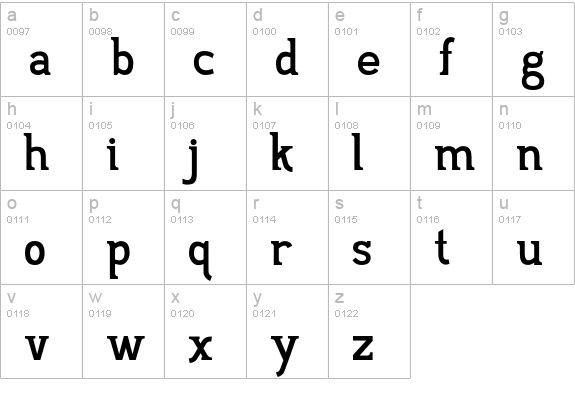
Pajarakan Studs Font Details
Pajarakan Studs font is a unique and captivating typeface that is sure to make a bold statement in any design project. With its intricate details and striking appearance, this font is perfect for adding a touch of elegance and sophistication to your work. The Pajarakan Studs font features a combination of sharp edges and ornate curves, creating a visually captivating effect that is both contemporary and timeless. What sets Pajarakan Studs font apart is its versatility. Whether you're designing a logo, creating a poster, or working on a website, this font will effortlessly elevate your design to new heights. Its bold and commanding presence demands attention, making it an excellent choice for headlines and titles. One of the best features of Pajarakan Studs font is that it is free. Yes, you read that right! This stunning typeface is freely available to download at FontsMarket.com. So you can enjoy all the benefits of this exceptional font without any cost. The Pajarakan Studs font is not only visually striking but also incredibly easy to use. It comes in a variety of weights and styles, allowing you to experiment and find the perfect fit for your project. Whether you prefer a bold and dramatic look or a more subtle and refined approach, this font has got you covered. So why wait? Download Pajarakan Studs font today from FontsMarket.com and take your designs to the next level. With its captivating design and free availability, this font is a must-have for any designer or creative individual looking to make a lasting impression. Give your work the attention it deserves with the bold and beautiful Pajarakan Studs font.